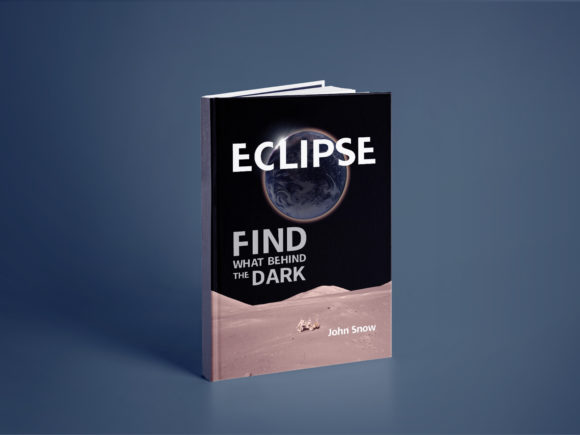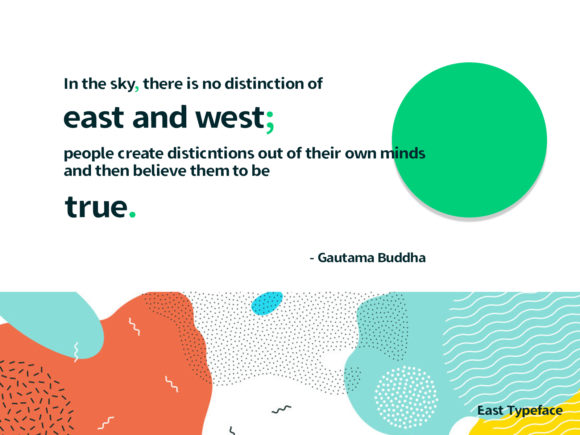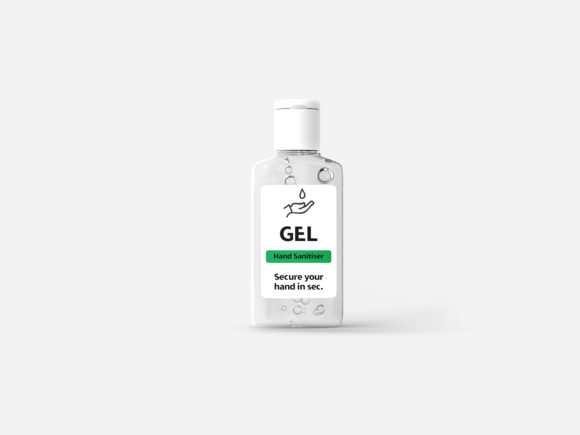
Introducing East Font: The Bold yet Minimal Sans Serif for Your Creative Projects
Are you a designer or crafter looking for a font that can elevate your creative ideas and make them stand out? Look no further than East Font, a bold yet minimal sans serif font that is perfect for a wide range of projects. With its clean and simple design, East Font is an incredibly versatile font that can be matched to an incredibly large set of projects, making it a must-have for any creative professional.
What Makes East Font So Special?
East Font is a bold sans serif font that exudes confidence and sophistication. Its clean lines and minimalist design make it perfect for projects that require a modern and sleek look. Whether you’re working on a logo, branding materials, or a website, East Font is sure to make a lasting impression. Its boldness also makes it perfect for headlines, titles, and other attention-grabbing elements.
Key Features of East Font
- Bold yet Minimal: East Font strikes the perfect balance between boldness and minimalism, making it perfect for a wide range of projects.
- Clean Lines: The font features clean lines and a simple design, making it easy to read and versatile.
- Sans Serif: The sans serif design of East Font makes it perfect for modern and sleek projects.
- Highly Versatile: East Font can be matched to an incredibly large set of projects, making it a must-have for any creative professional.
How to Use East Font in Your Projects
East Font is incredibly easy to use and can be applied to a wide range of projects, including:
- Logo Design: Use East Font to create a bold and memorable logo that will make your brand stand out.
- Branding Materials: East Font is perfect for business cards, brochures, and other branding materials that require a modern and sleek look.
- Web Design: Use East Font to create a bold and attention-grabbing website that will leave a lasting impression on your visitors.
- Print Design: East Font is perfect for print design projects, including posters, flyers, and other marketing materials.
Why Choose East Font?
There are many fonts available that claim to be versatile and easy to use, but East Font stands out from the rest. Here are just a few reasons why:
- Unique Design: East Font has a unique design that sets it apart from other sans serif fonts.
- High-Quality: East Font is a high-quality font that is designed to look great in any project.
- Easy to Read: The clean lines and simple design of East Font make it easy to read, even at small sizes.
If you’re looking for a bold yet minimal sans serif font that can elevate your creative ideas and make them stand out, look no further than East Font. With its clean lines, simple design, and highly versatile nature, East Font is perfect for a wide range of projects. Whether you’re a designer, crafter, or DIY enthusiast, East Font is a must-have font that is sure to become a staple in your creative toolkit.